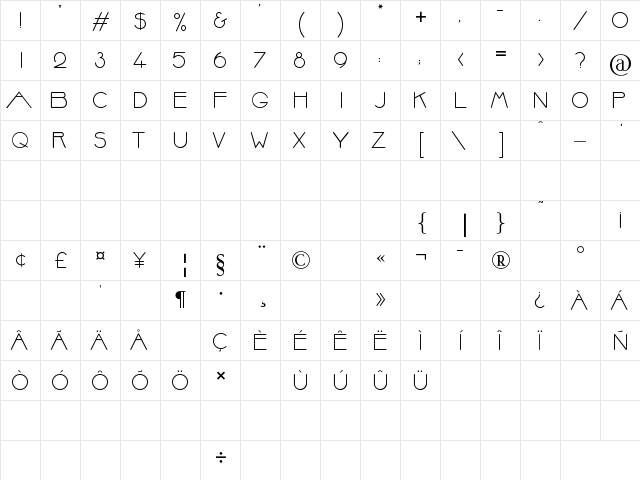
London Babylon Regular
Design Context for London Babylon Typeface
London Babylon offers clean, dependable letterforms without strong stylistic allegiance, making it a practical choice for designers who need flexibility.